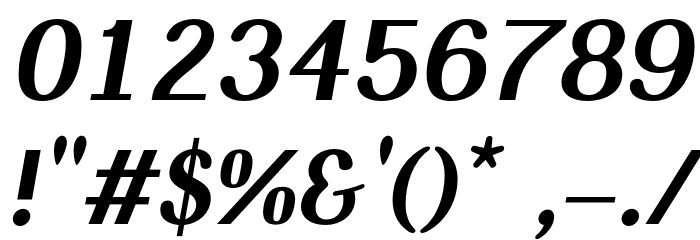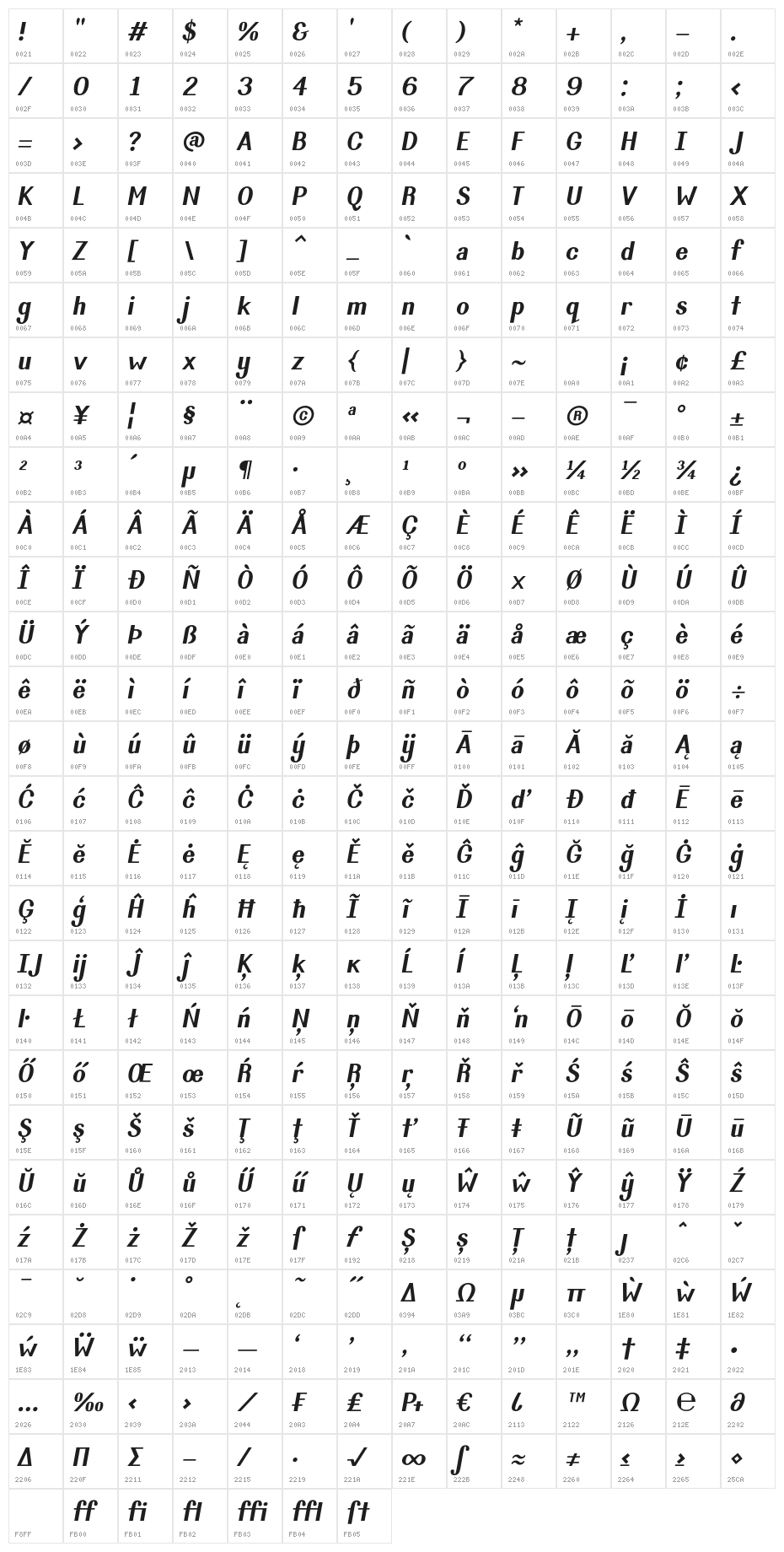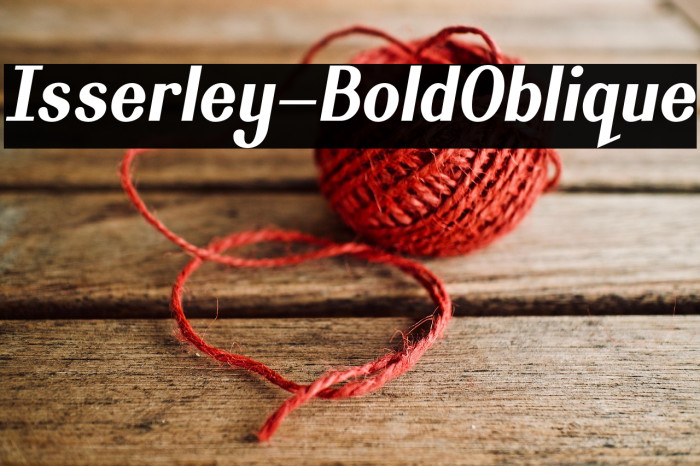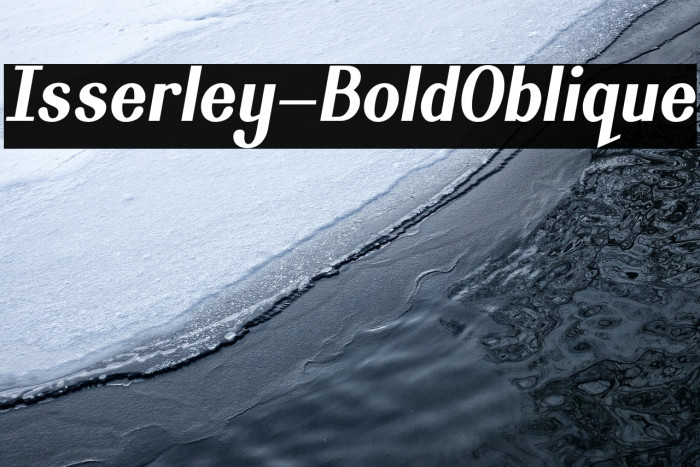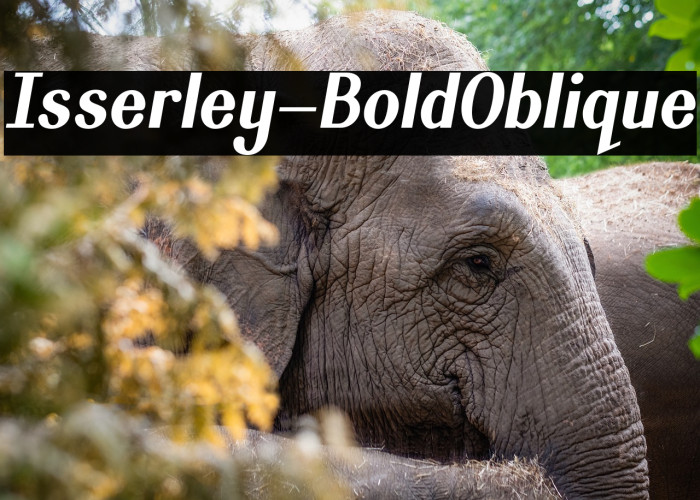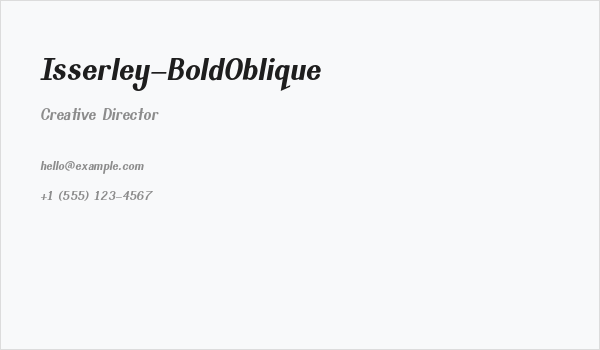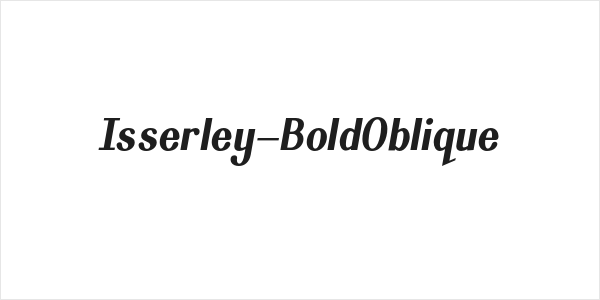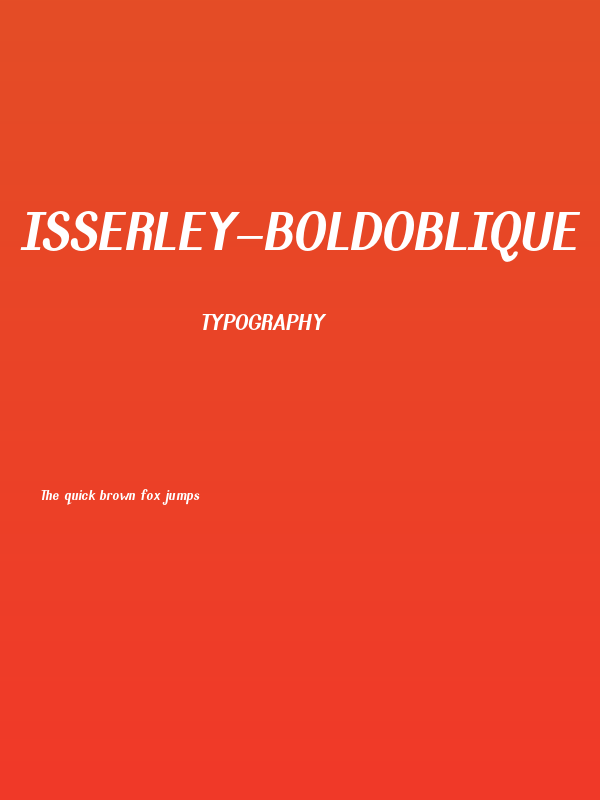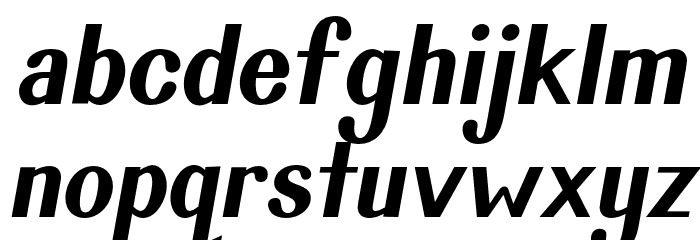
Isserley-BoldOblique Font
Isserley-BoldOblique Description
This font exhibits a bold and oblique style, characterized by its strong and dynamic appearance. The letters are slanted, giving a sense of movement and energy. The strokes are thick and consistent, providing a robust and impactful look. The uppercase and lowercase letters maintain a uniform style, with smooth curves and sharp edges that enhance readability. The numbers and special characters are designed to match the overall aesthetic, ensuring a cohesive look across all text elements. This font is suitable for making bold statements and capturing attention.
| Proposed Projects | Ideal for headlines, posters, branding materials, and any design requiring a bold and energetic typeface. |